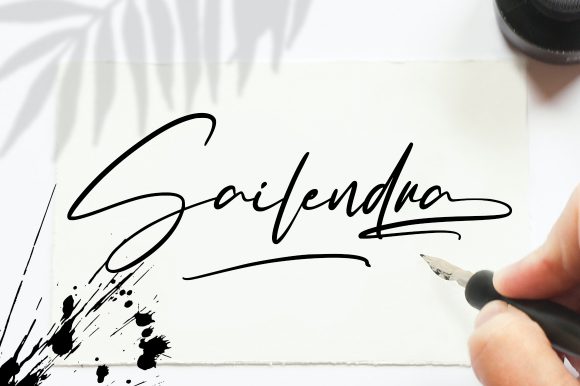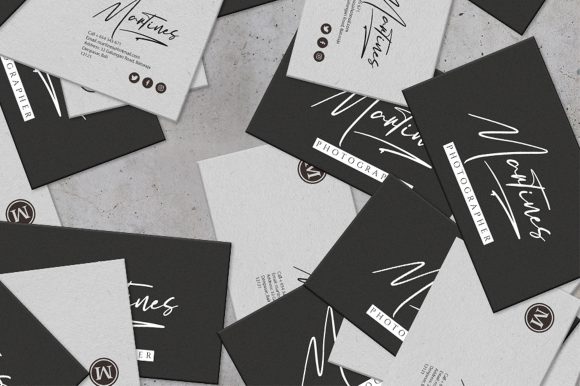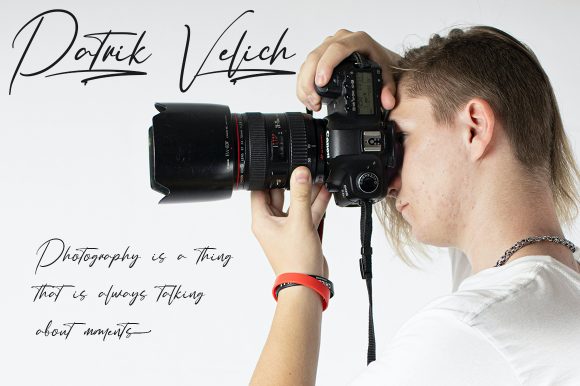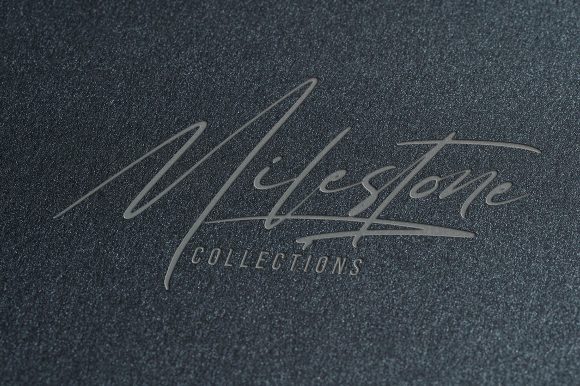
About Sailendra Font
Sailendra is a fashionable handwritten font. It is the best choice for creating eye catching logos, branding and quotes. Every letter has a unique and beautiful touch, which will make your design come alive! This font is PUA encoded which means you can access all of the glyphs and swashes with ease!